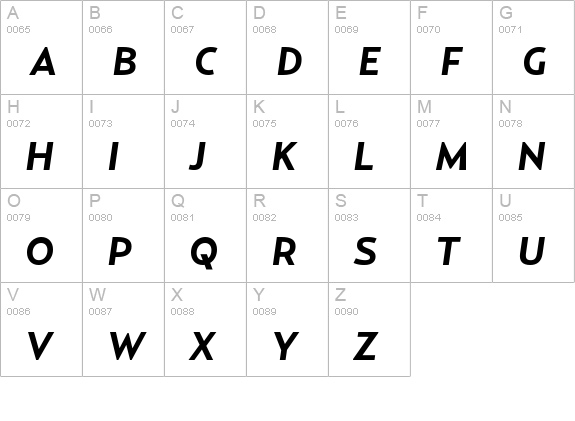
Relay-BoldItalic Font Details
Relay-BoldItalic font is a stylish and eye-catching typeface that exudes confidence and sophistication. Its bold and slanted design adds a touch of elegance to any project, making it perfect for headlines, logos, and branding materials. With its unique combination of boldness and italic style, Relay-BoldItalic stands out from the crowd, making a bold statement and leaving a lasting impression. This font is perfect for those who want to convey a sense of power and authority in their designs. One of the best things about Relay-BoldItalic font is that it is freely available to download at FontsMarket.com. This means that you can easily access this stunning font without any hassle. Whether you are a professional designer or just someone looking to spice up their personal projects, Relay-BoldItalic font is a great choice. The versatility of Relay-BoldItalic font allows it to be used in various design projects, ranging from posters and advertisements to website headers and social media graphics. Its clean and sharp lines ensure excellent legibility, even at smaller sizes. With its distinctive and captivating aesthetic, Relay-BoldItalic font adds a touch of modernity and sophistication to any design. Its strong and bold characters make a powerful statement, while the italic style adds a sense of movement and dynamism. In conclusion, Relay-BoldItalic font is a must-have for designers who want to make a bold and unforgettable impact. Its freely available download at FontsMarket.com makes it even more accessible to everyone. So why wait? Download Relay-BoldItalic font now and elevate your designs to the next level!